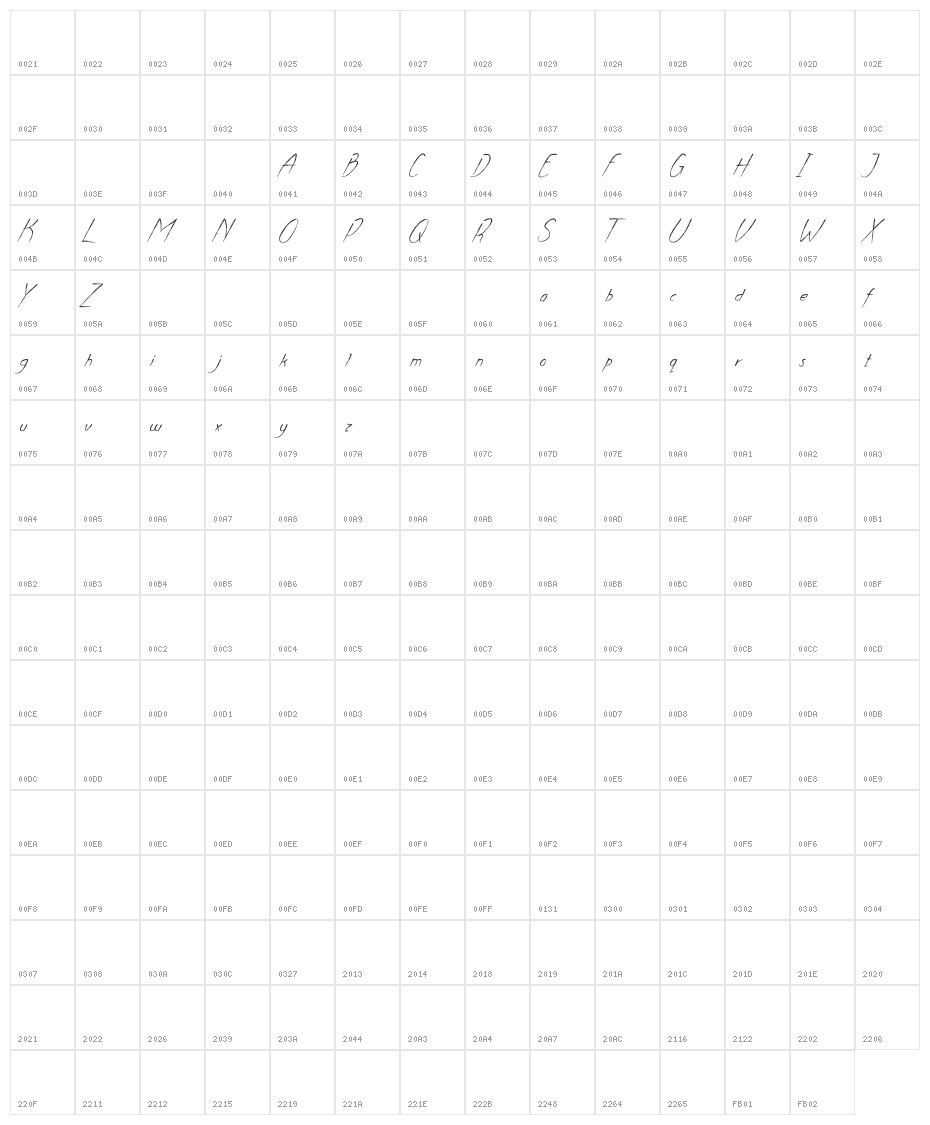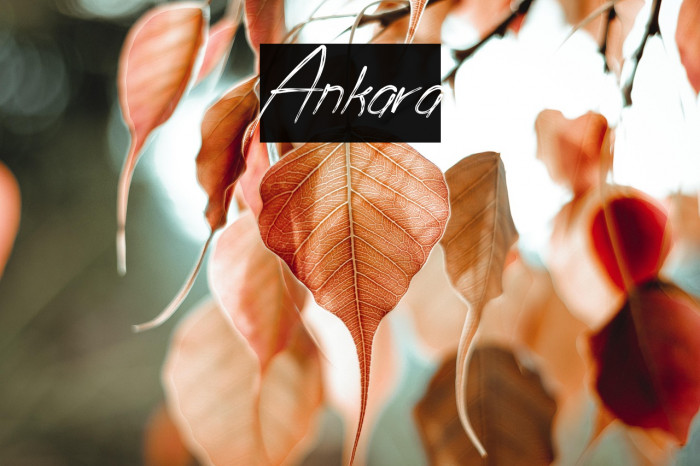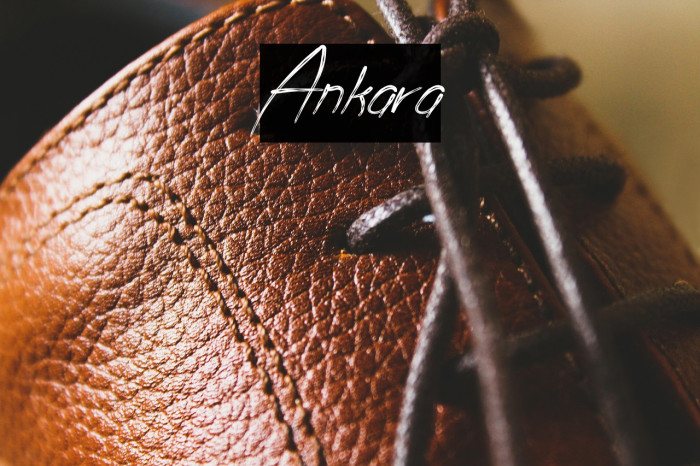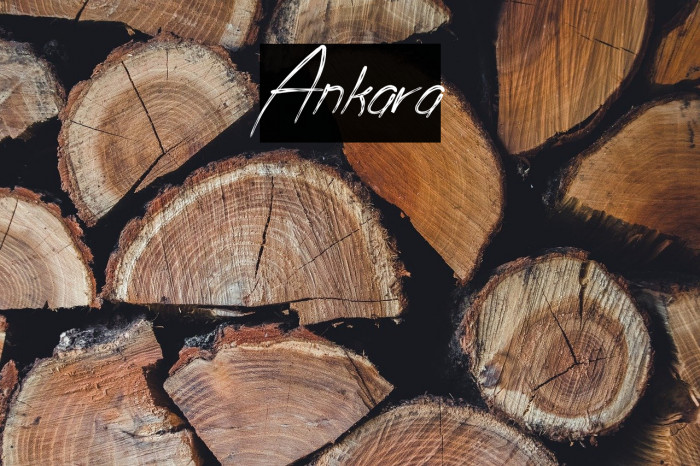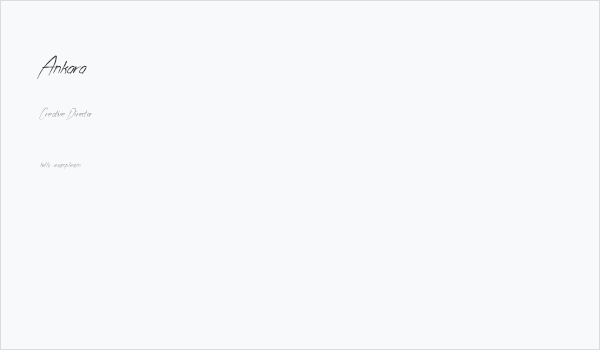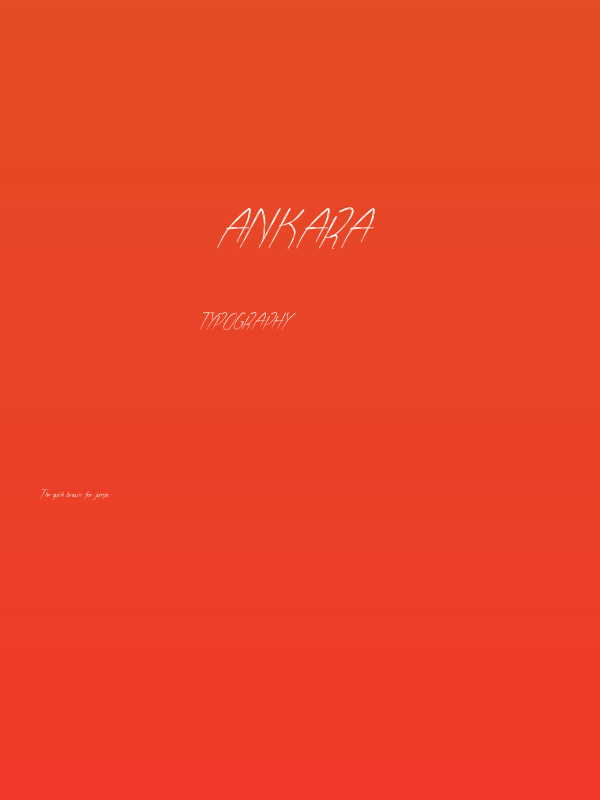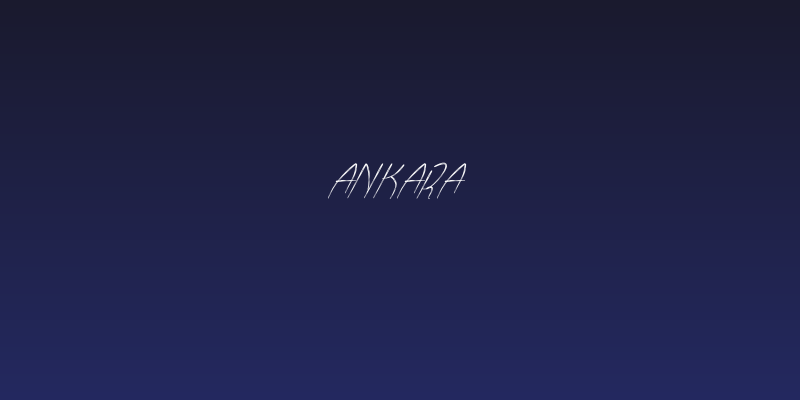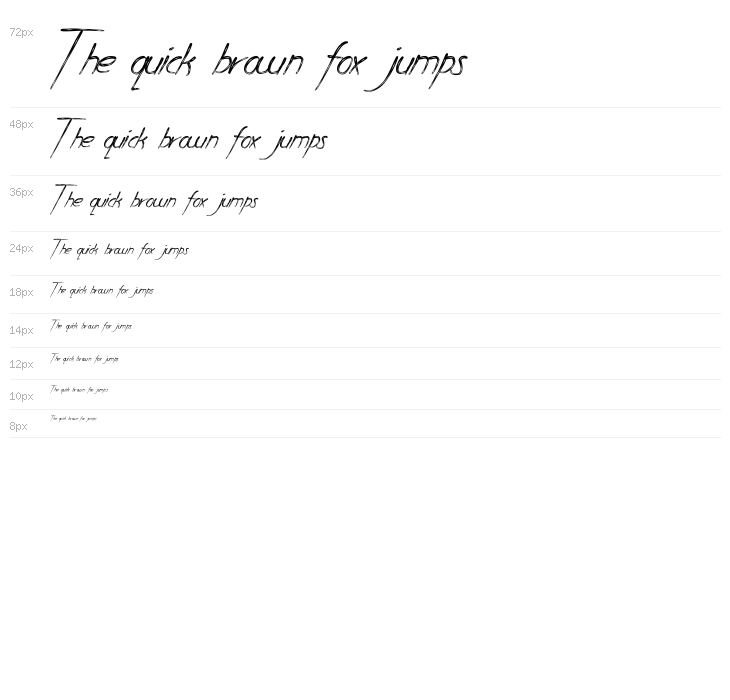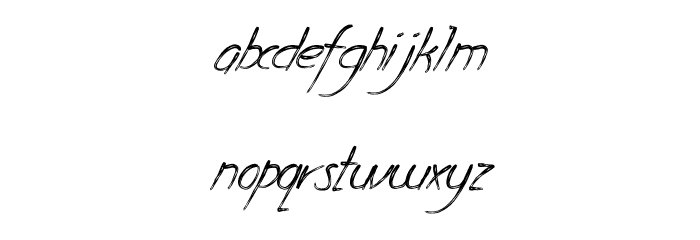
Ankara Font
Ankara Description
This font exhibits a dynamic and flowing script style, characterized by its elegant and slightly slanted letterforms. The strokes are smooth and fluid, giving it a handwritten appearance that is both sophisticated and approachable. The uppercase letters are tall and commanding, while the lowercase letters maintain a consistent rhythm and balance. The overall design is airy and light, with a sense of movement that adds a touch of personality and flair. This font is versatile, making it suitable for a variety of creative projects where a personal touch is desired.
| Proposed Projects | Ideal for wedding invitations, greeting cards, personal branding, and artistic projects requiring a personal touch. |